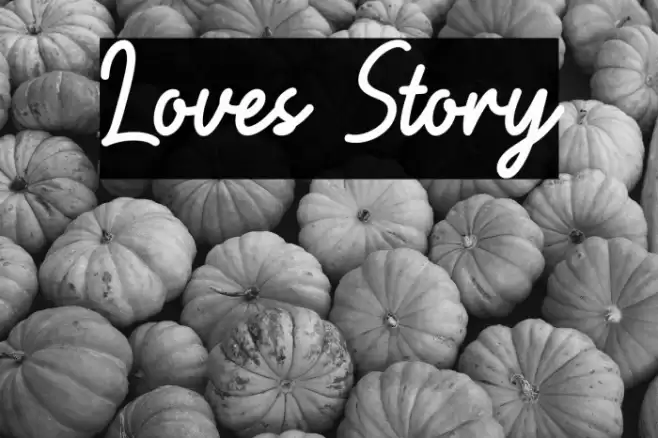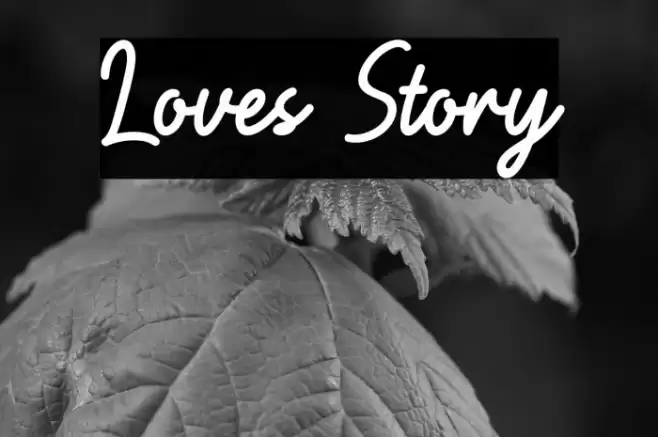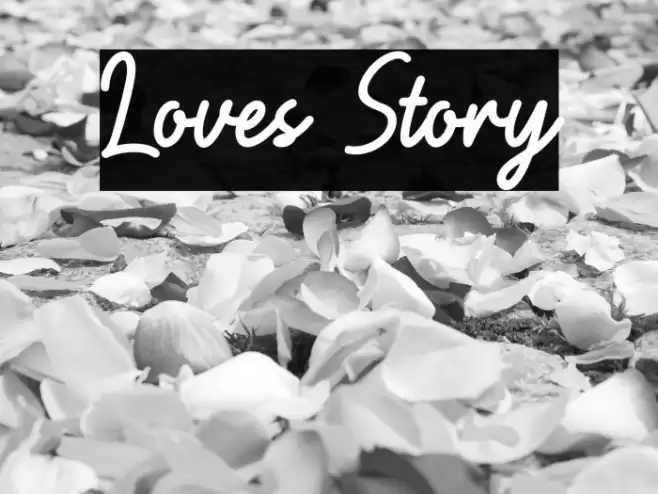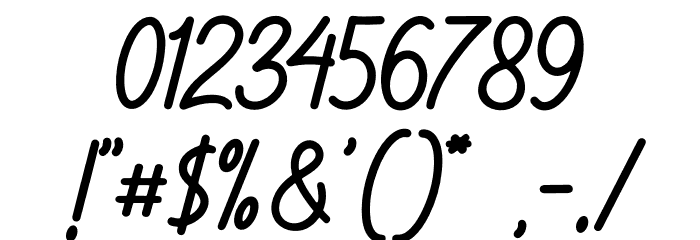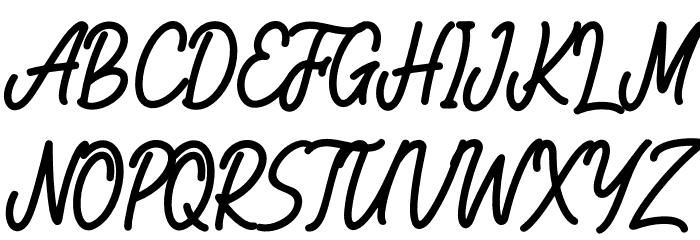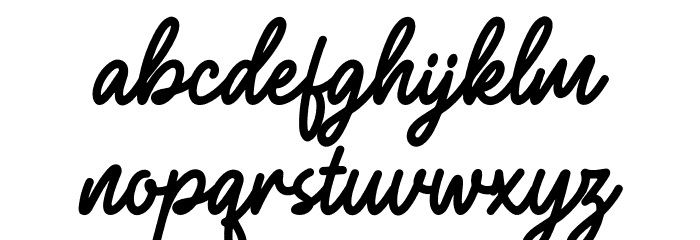
Loves Story Font
Loves Story Description
This font features a flowing, cursive style that exudes elegance and charm. The characters are connected, creating a seamless and fluid appearance. The uppercase letters are bold and prominent, while the lowercase letters maintain a consistent flow. The numerals and special characters are designed to match the script style, ensuring a cohesive look across all text. The overall design is both sophisticated and approachable, making it suitable for a variety of uses.
A flowing, cursive script font with elegant, connected characters from Valentine's Day fonts.
- Proposed Projects: Ideal for wedding invitations, greeting cards, personal branding, and romantic-themed designs.
- Overall Style: Elegant
- Use Case: Logos, Invitations, Decorative text